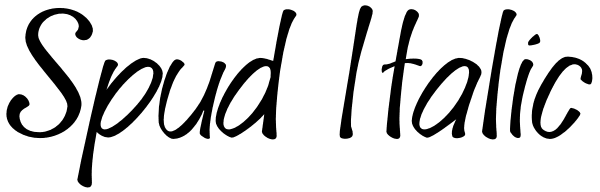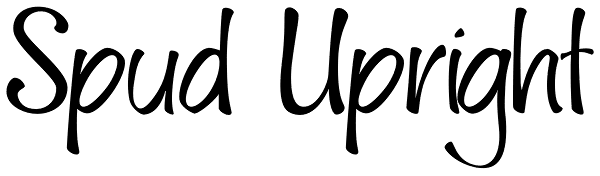
Spud
Capturing the free flowing feel of handwriting in a font is remarkably difficult. Spud is another attempt to achieve this.
Spud Italic
Spud Italic Font
Spud Upright
Spud Upright Font
Spud Bold Upright
Spud Bold Upright Font
Spud Bold Italic
Spud Bold Italic Font
Spud Black Upright
Spud Black Upright Font
Spud Black Italic
Spud Black Italic Font